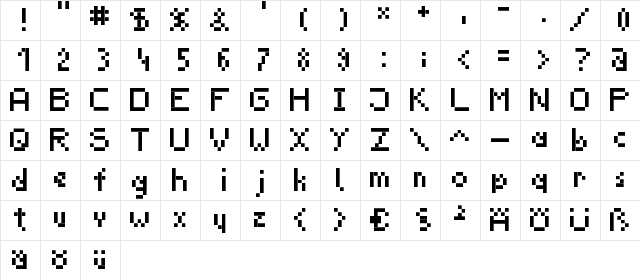
screensix Regular Font Preview
screensix Regular
screensix Regular Font Details
Design Context for screensix Typeface
screensix is a composed and adaptable typeface that performs quietly and consistently across a wide range of design contexts.